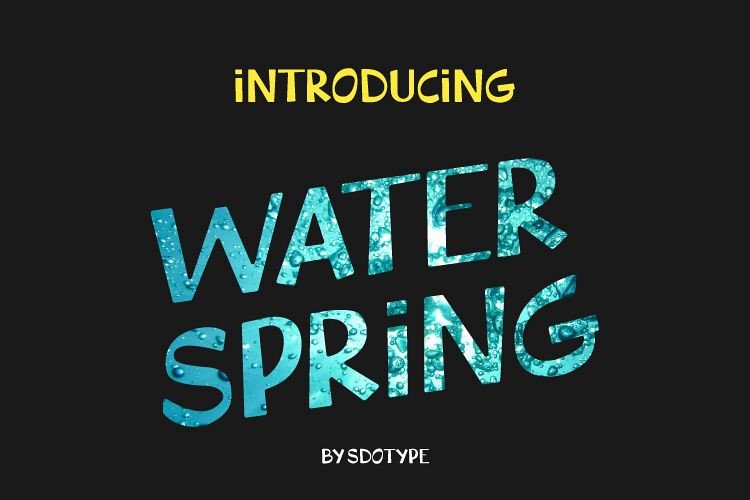
WaterSpring Font
Introducing, WaterSpring Font a fun bold display typeface with cheerful theme for your fun project.
WaterSpring is The unique characteristics, make it very suitable for various purposes such as quotes, t-shirt designs, flyers, youtube channels, labels, logos etc.